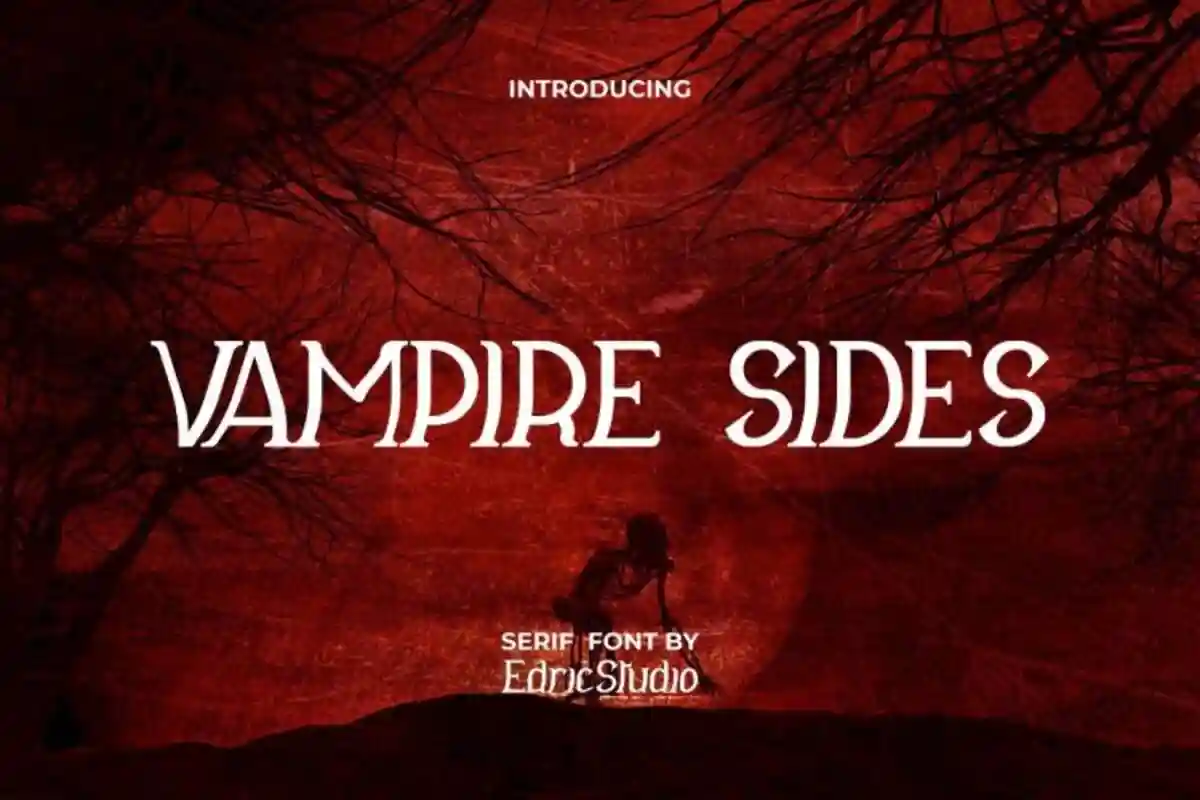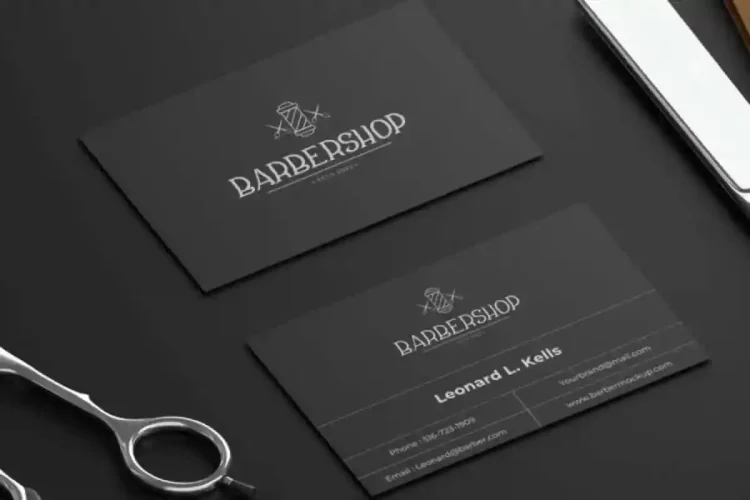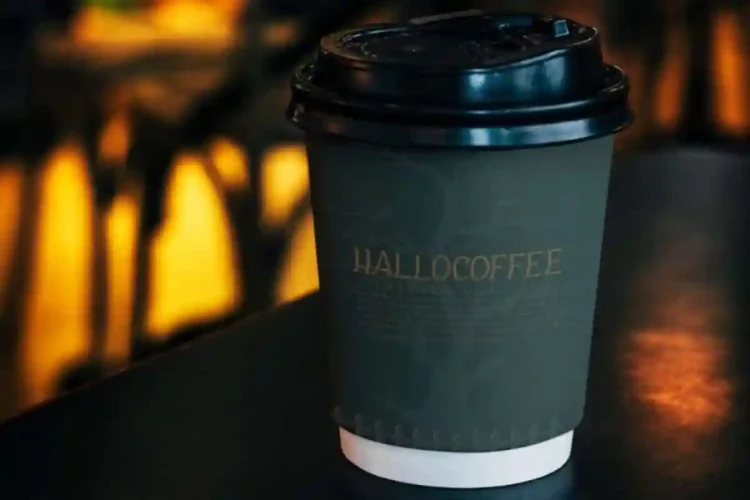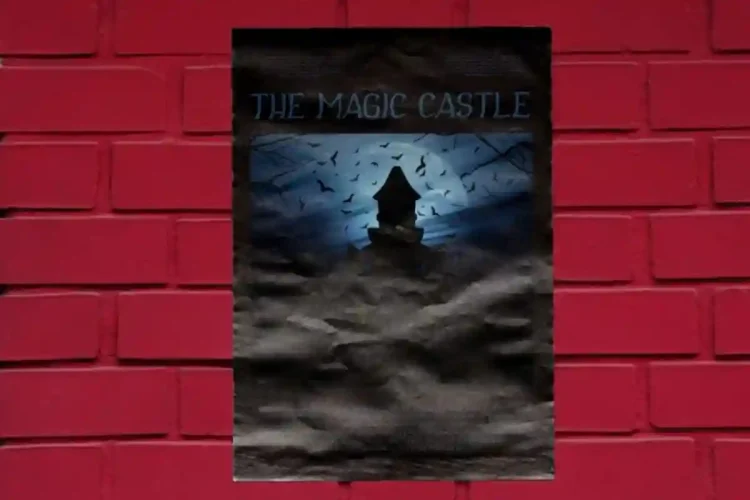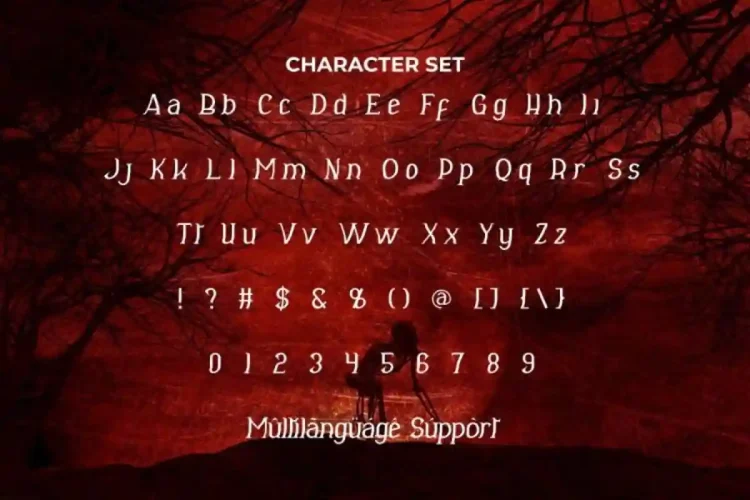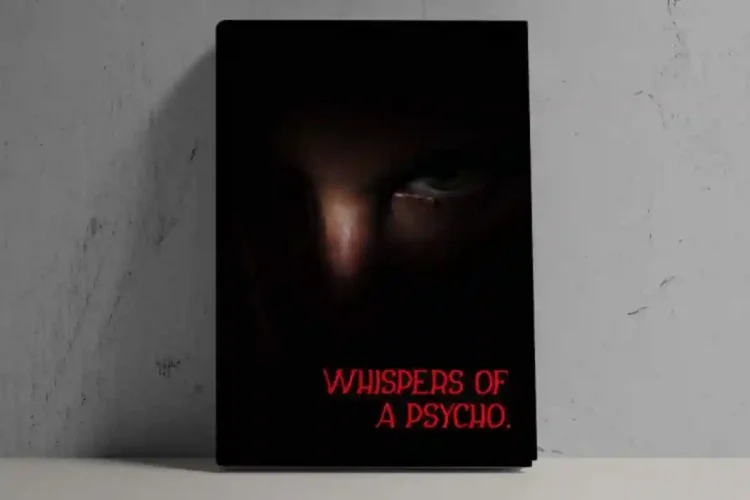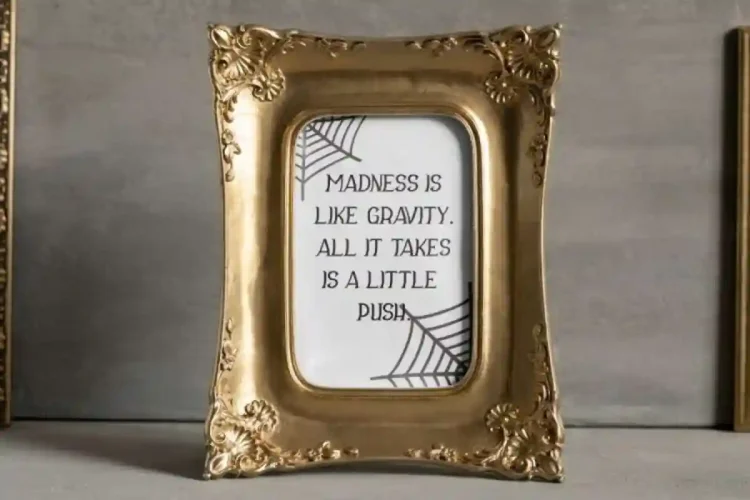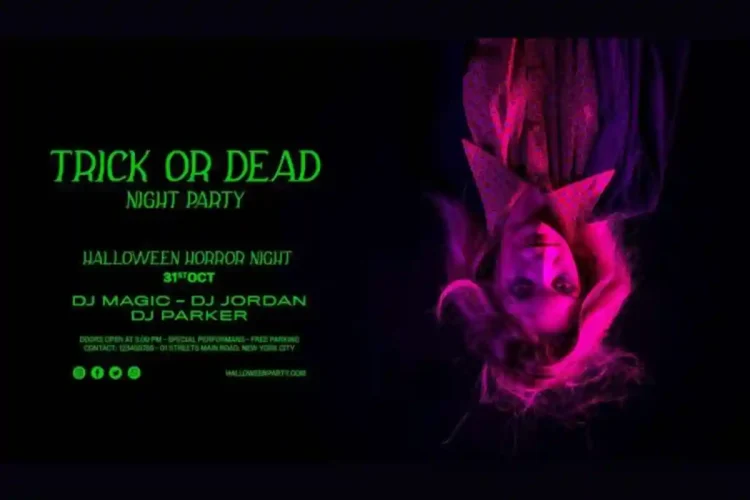
Vampire Sides Modern Display Font
Vampire Sides Modern Font a unique serif display typeface crafted by EdricStudio. Use this font for all industries, including: antique furniture, architect, author, barber, café, event organizer, fashion, film, handicrafts, movie, music, printing, publishing, etc.
Vampire Sides Modern Display Font comes with a full set of Uppercase and Lowercase Basic Characters, Number, large range of Punctuation and Symbol. It has a stunning characters set, perfectly managed with well spaced and kerning.
Vampire Sides Font is a playful typeface with unique decoration in each character. Ready to use both on Windows machine or Mac with simple installations. It’s tested to work well in the Adobe Apps (Illustrator, Adobe InDesign, Adobe Photoshop) even work on Microsoft Word. PUA Encode Characters means you can access all characters easily – Fully accessible without additional design software.